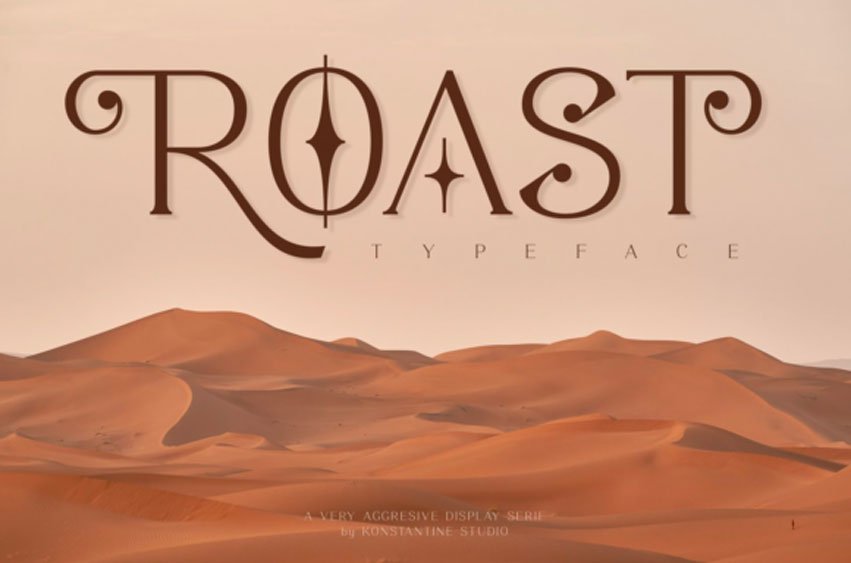
Roast Font
Roast Font is a distinct and classic serif font.
It is elegant and features sharp letters, and as a result, it will easily match a wide range of creations that require a distinct touch.